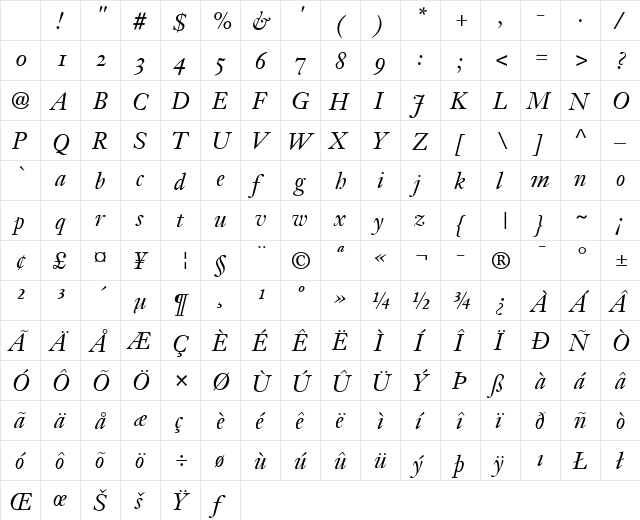
JansonText RomanSC Italic
Design Context for JansonText RomanSC
JansonText RomanSC is a composed and adaptable typeface that performs quietly and consistently across a wide range of design contexts. The slanted form adds forward momentum and visual energy.
Pro Tip: Use JansonText RomanSC for emphasis, pull quotes, and subheadings where its slanted energy can add rhythm to the layout.